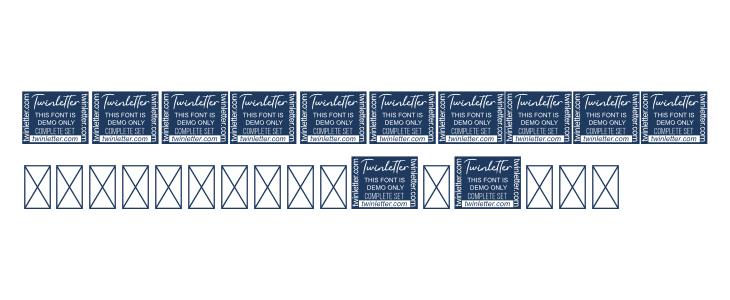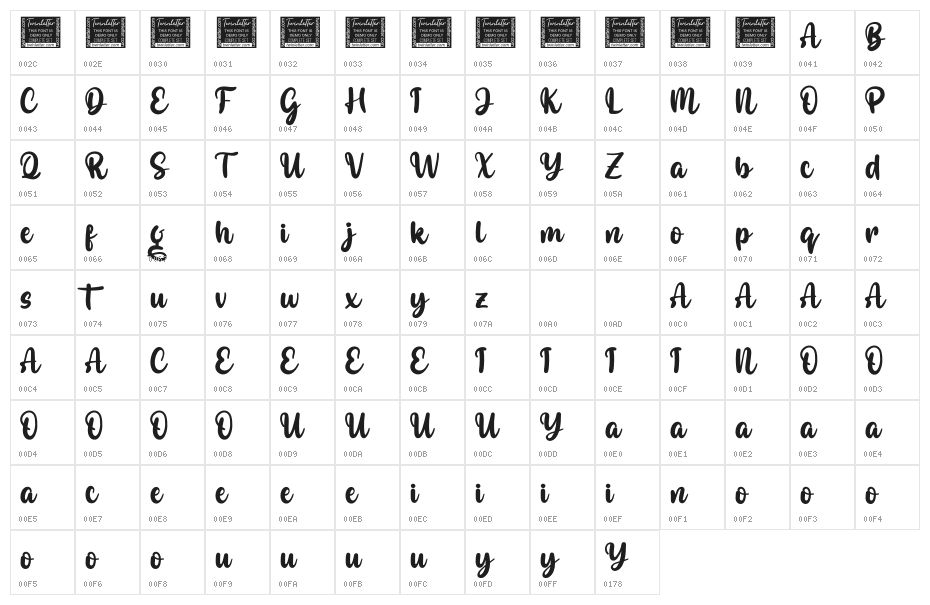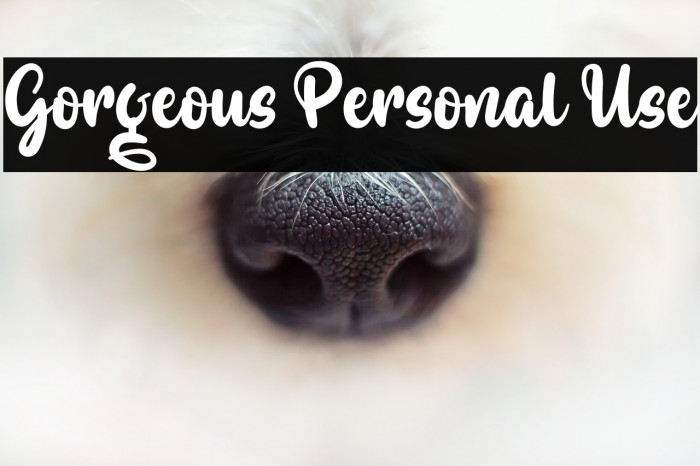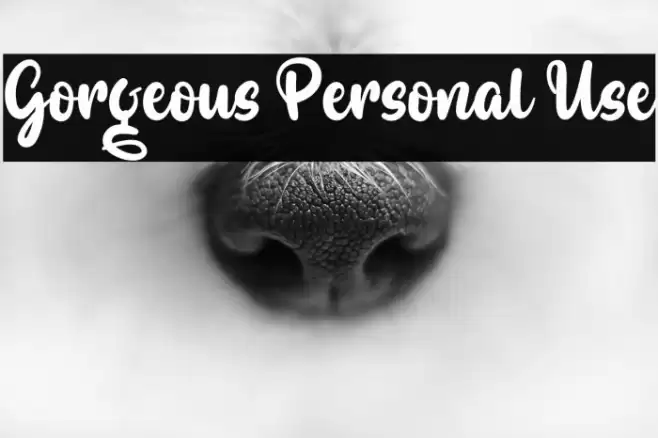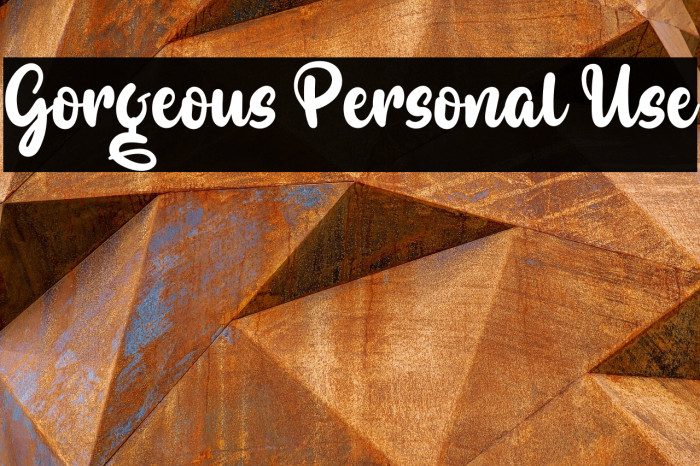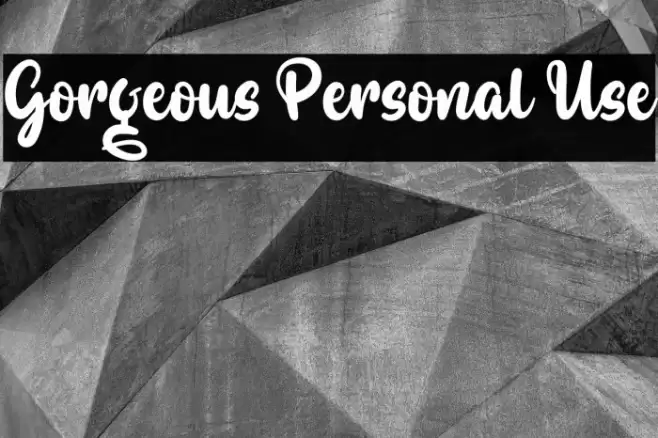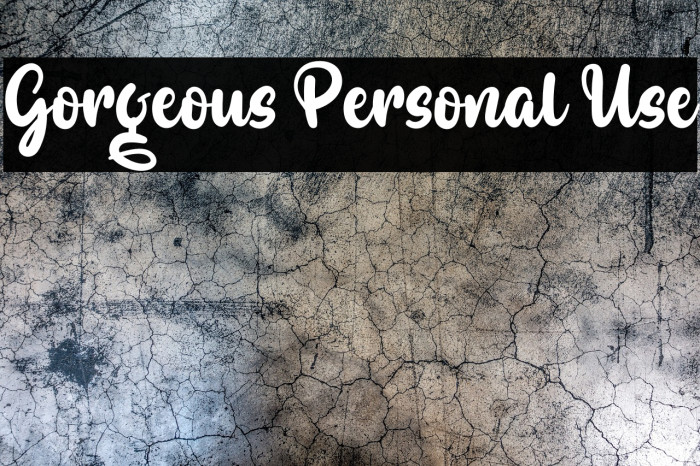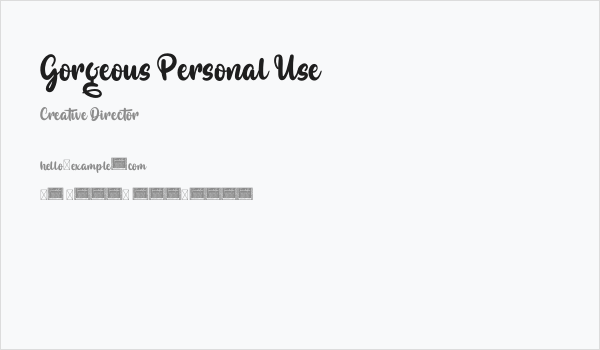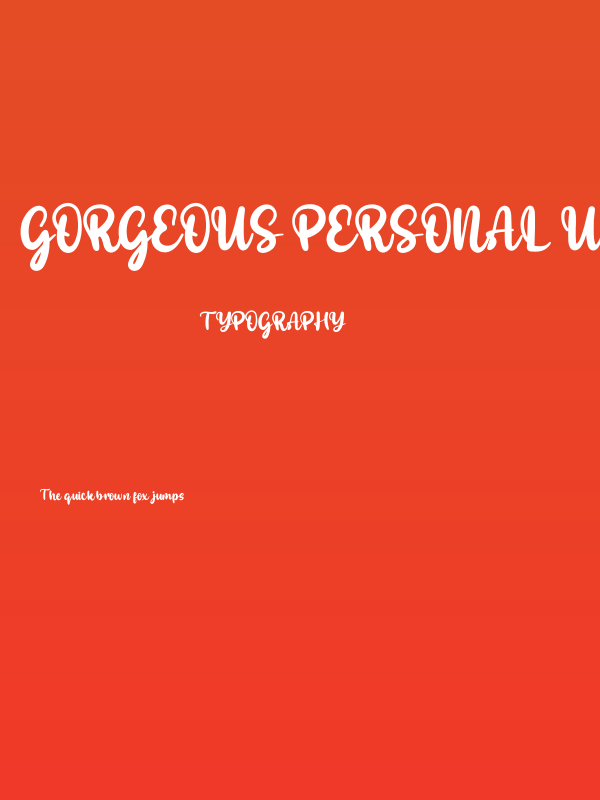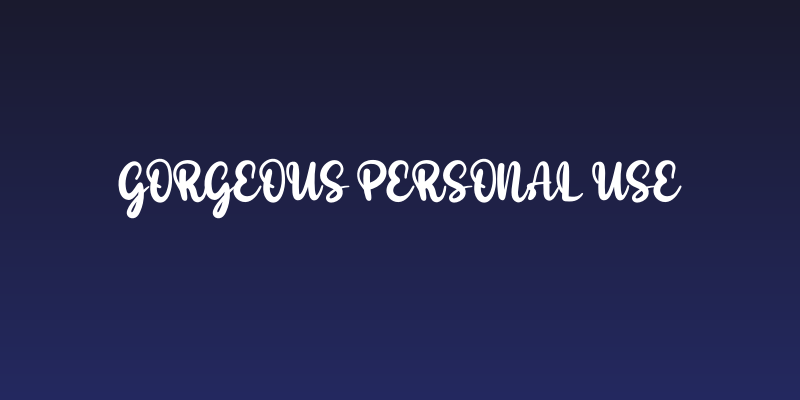
Gorgeous Personal Use Font
Gorgeous Personal Use Description
This font features a bold and expressive script style, characterized by its flowing, cursive letterforms. The uppercase letters are elegantly crafted with sweeping curves and a sense of movement, while the lowercase letters maintain a consistent, connected flow. The overall design is both playful and sophisticated, making it suitable for a variety of creative applications. The thick strokes and high contrast between thick and thin lines give it a dynamic appearance, enhancing its readability and visual impact. This font is perfect for projects that require a personal touch, such as invitations, greeting cards, or branding materials.